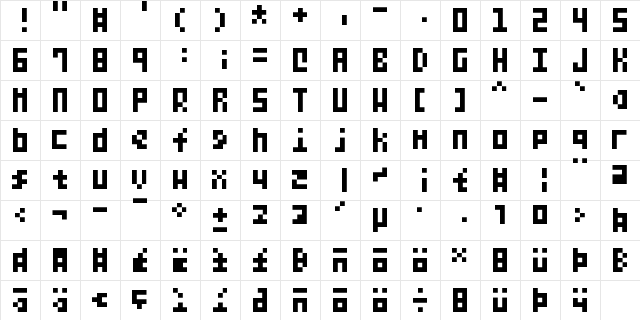
Teeny Tiny Pixls Regular
Design Context for Teeny Tiny Pixls Typeface
Teeny Tiny Pixls offers clean, dependable letterforms without strong stylistic allegiance, making it a practical choice for designers who need flexibility.
Pro Tip: Use Teeny Tiny Pixls in both headline and body roles to test its range before committing to a single application.